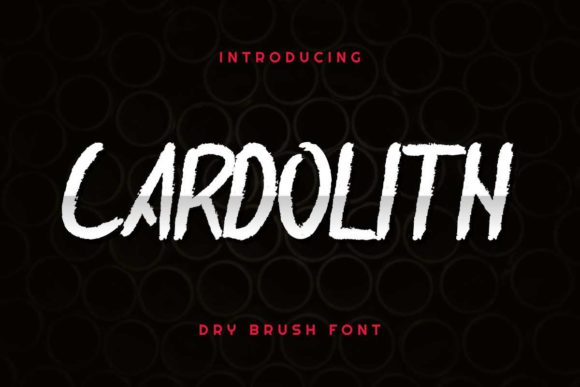
The Quest for the Perfect Font: How Cardolith Stole My Heart
I’ll never forget the time I was working on a project for a client’s children’s book. I had the illustrations, the story was written, and I was ready to start designing. But, as I sat in front of my computer, I realized I was stuck – I couldn’t find the right font to bring the story to life. That’s when I stumbled upon Cardolith, a cute and friendly handwritten font that instantly resonated with me.
A First Impression: What I Love About Cardolith
Cardolith is a relaxed and a bit quirky font that has become a staple in my design toolkit. Here are a few things I love about it:
• ✨ Cute and Friendly: Cardolith has a playful, approachable feel that’s perfect for designs that need a personal touch.
• ✅ Highly Versatile: This font works well for a wide range of projects, from children’s books to branding, and even social media graphics.
• 💫 Unique Character: Cardolith has a distinct personality that sets it apart from other handwritten fonts.
The Not-So-Perfect Font: A Few Quirks
While Cardolith is an amazing font, it’s not without its limitations. Here are a few things to keep in mind:
• 🤔 Limited Formality: Cardolith is a casual font, so it may not be the best choice for very formal or professional projects.
• ⚠️ Some Letters May Be a Bit Cramped: When using Cardolith at smaller sizes, some letters may appear a bit cramped, so it’s essential to adjust the tracking accordingly.
The Story Behind Cardolith
Cardolith was designed with the intention of creating a friendly, approachable font that would bring a smile to people’s faces. The designer aimed to craft a font that would be perfect for creative projects, from children’s books to branding and advertising. With its unique character and highly versatile nature, Cardolith has become a favorite among designers and crafters.
What is Cardolith best used for? Cardolith is perfect for creative projects, such as children’s books, branding, social media graphics, and more.
Is Cardolith a formal font? No, Cardolith is a casual, handwritten font and may not be suitable for very formal projects.
Does Cardolith support OpenType features? Yes, Cardolith supports OpenType features, such as ligatures and stylistic alternates.